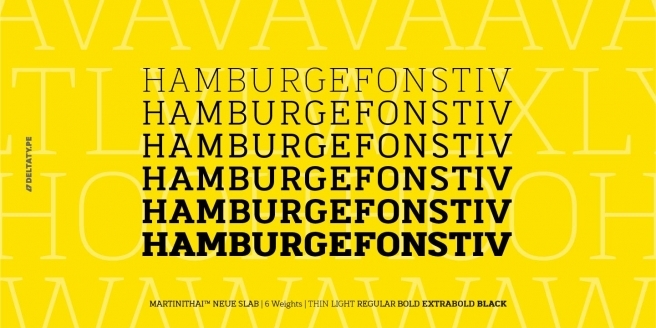
A complete design system from Laura Worthington for under $30. For the one or two of you who didn’t immediately click through to buy it already: it’s a sailor and tattoo themed font with swashes, alternates, and forms aplenty. If you like the appeal of pre-picked font combinations, and need a style that doesn’t look like all the others, jump on this font! You won’t regret it! |
We love us some modern slabs here at Fontspring, and Martinithai Neue Slab checks all the boxes. Interesting lines, lots of extras, big chunky weights. While it won’t do everything for you, it’s a perfect choice when you need something just different enough to grab attention. |
Have you ever wondered why it seems like every comic book uses the same style of lettering? This Vox video explores the origins of that hand lettering and the transition to digital fonts. Vox interviewed John Roshell and Richard Starkings of Comicraft and got the low down on the idiosyncrasies and characteristics of comic book fonts. If you’re looking to license fonts for comics, you can find a great collection on our site.
John Hudson of Tiro Typeworks, a core member of the OpenType Variable Fonts working group, introduces us to a groundbreaking update in the world of font technology. Backed by giants in the industry (Adobe, Apple, Google, and Microsoft), this update has the potential to change how we use and implement fonts on the desktop and on the web. More info can be found in Nick Sherman’s edited twitter feed, @variablefonts.
James Edmondson of OH no Type Co, one of a new wave of super creative font foundries, runs us through his design process for Vulf Mono, a monospace with nuance and soul. The font was inspired by a font available for the IBM Selectric Typewriter and by the funk band, Vulfpeck, for whom the font was named and designed. We’re loving the font family and the story behind its unique design.